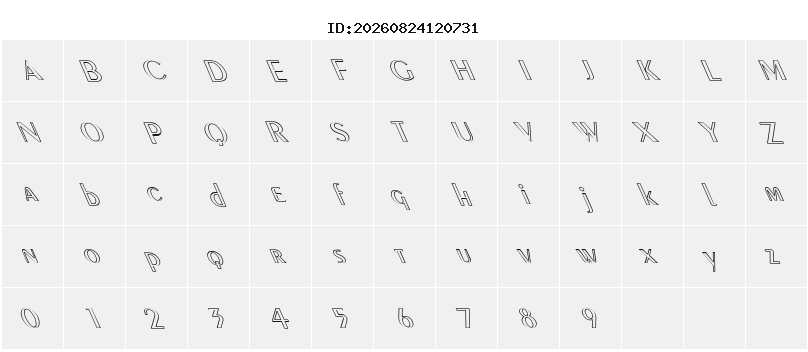
Sailor Hollow Extreme Lefties Preview
• Font Name: Sailor Hollow Extreme Lefties
• Full Font Name: Sailor Hollow Extreme Lefties
• PostScript Name: SailorHollowExtremeLefties
About Sailor Hollow Extreme Lefties.ttf
Sailor Hollow Extreme Lefties.ttf is a modern, elegant sans-serif font designed for ultimate readability and visual harmony. Perfect for branding, headlines, web design, and print materials.